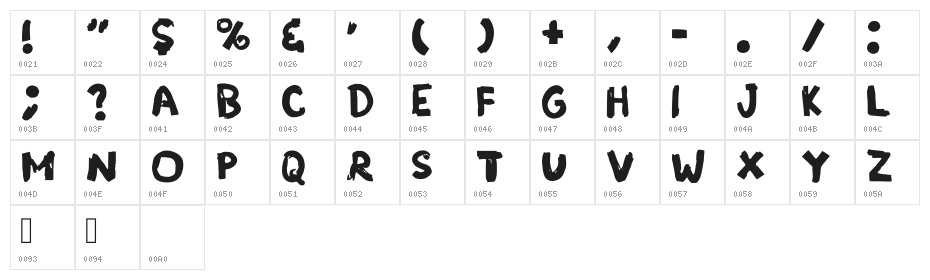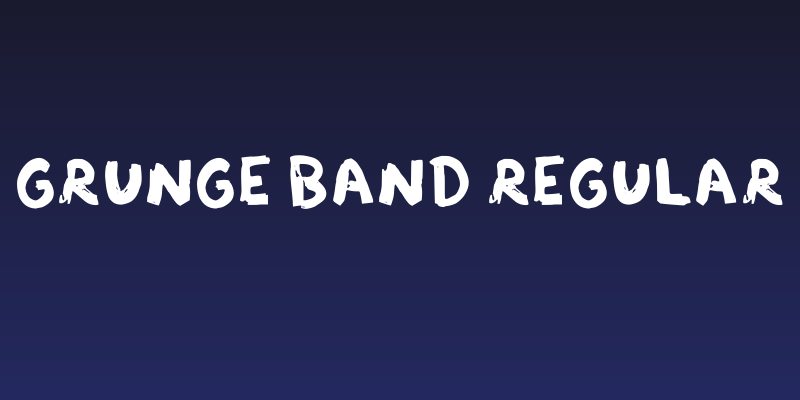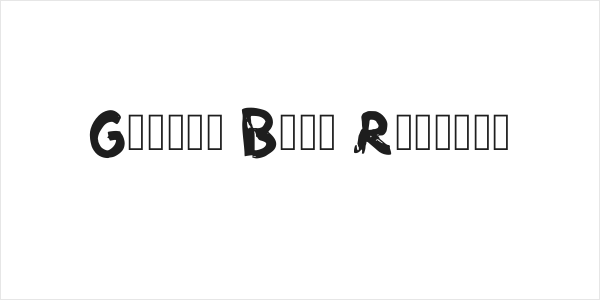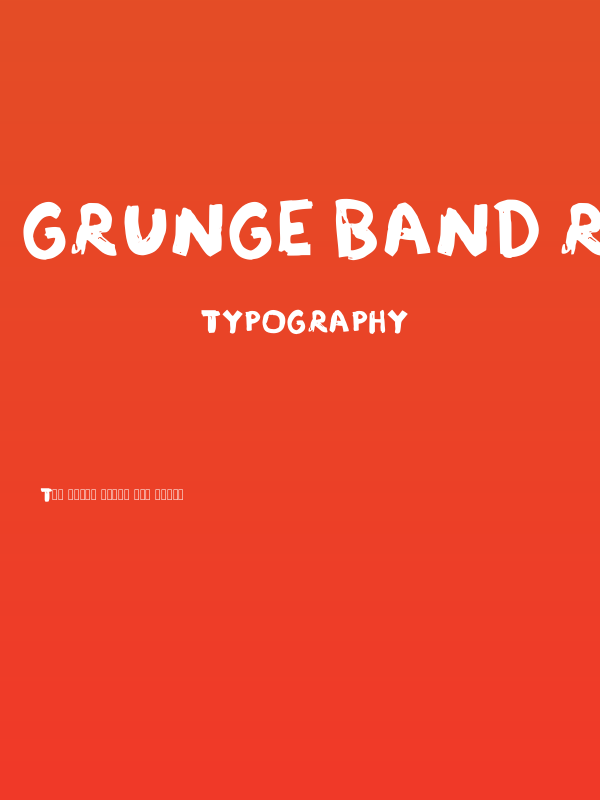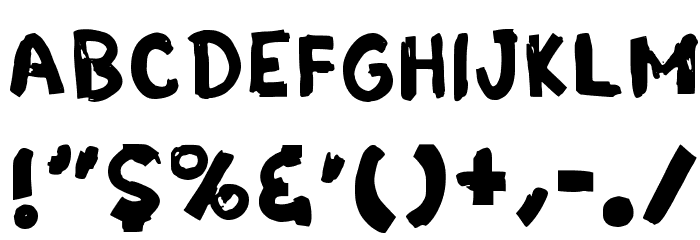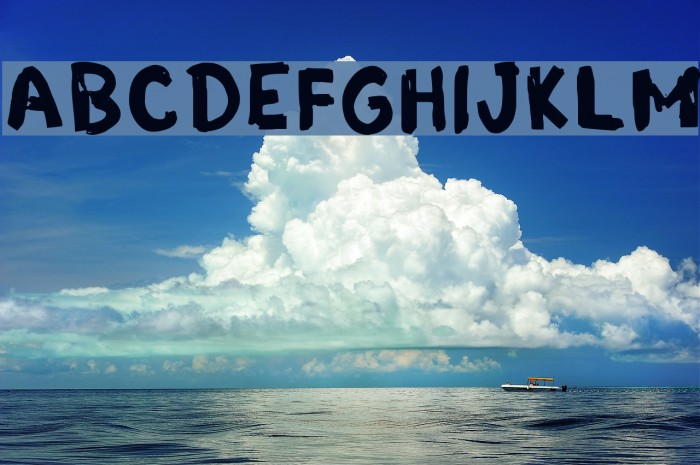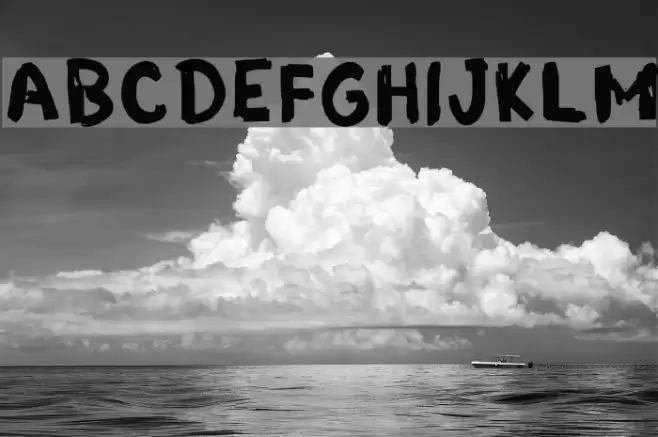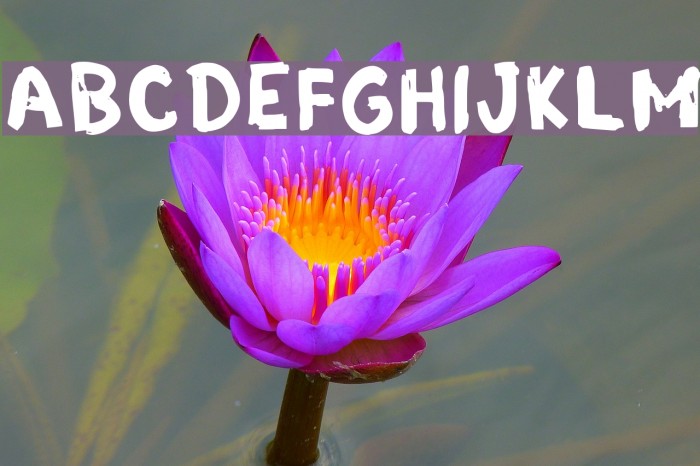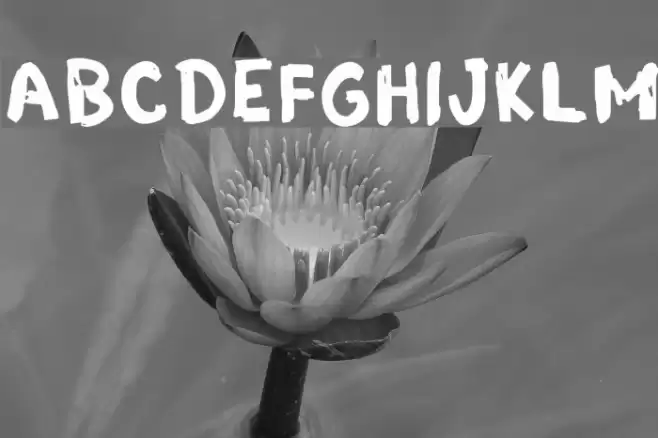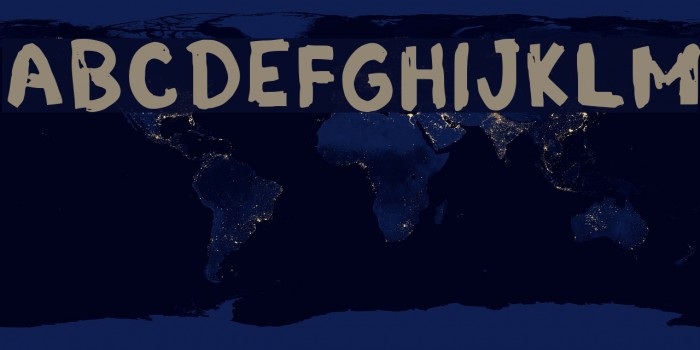
Grunge Band Regular Font
This font embodies a rugged, distressed aesthetic reminiscent of grunge and punk rock styles. The characters are bold and irregular, with rough edges and a hand-drawn appearance that adds a sense of raw energy and authenticity. The uppercase letters dominate with their thick strokes and uneven lines, while the lowercase letters maintain the same boldness, creating a cohesive yet chaotic look. Numbers and special characters follow the same design principles, ensuring consistency across all glyphs. This font is perfect for projects that require a rebellious, edgy vibe, such as band posters, album covers, or alternative fashion branding.
| Overall Style | Grunge, Edgy |
| Proposed Projects | Ideal for music posters, album covers, alternative fashion branding, and edgy graphic designs. |